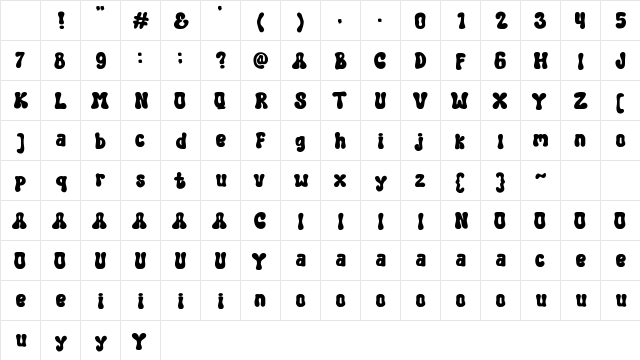
Complete Hony Moon Regular glyph index. Displaying only characters natively supported by Hony Moon Regular font.
Hony Moon is a composed and adaptable typeface that performs quietly and consistently across a wide range of design contexts.